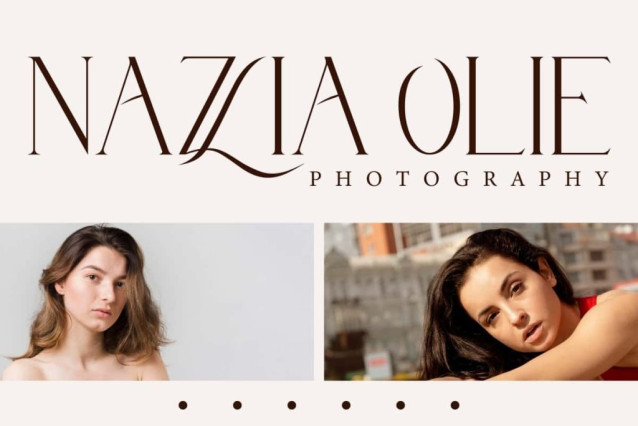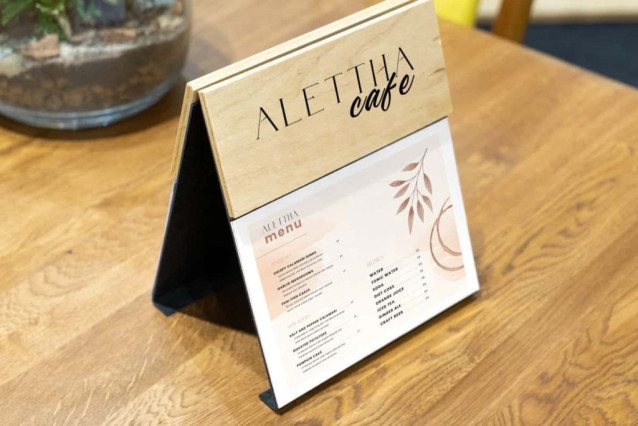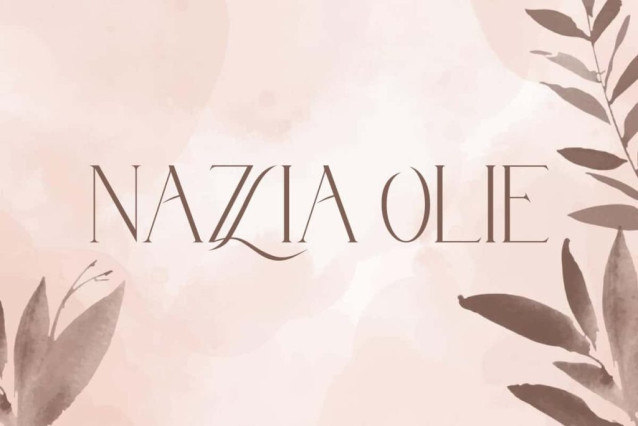
Nazlia Olie Font
Nazlia Olie Font is a modern ligature serif display font with an extra touch of elegance. It can enhance your work through its clean and sophisticated visuals. Perfect for brochure, blogs, covers, flyer, headers, invitation, logos, menu, mockup, packaging, poster, product label, template, title, website, and more.
Nazlia Olie Font includes full set of Uppercase and Lowercase Basic Characters, Numbers, Punctuation, Symbols and Ligature. Timeless elegance wrapped in simplicity has influenced the sleek letters, finding their finishing touch through a delicately handcrafted look. Perfect for cafe, clothing brand, cosmetic, fashion, home furniture, photography, skincare, spa salon, wedding organizer, etc.